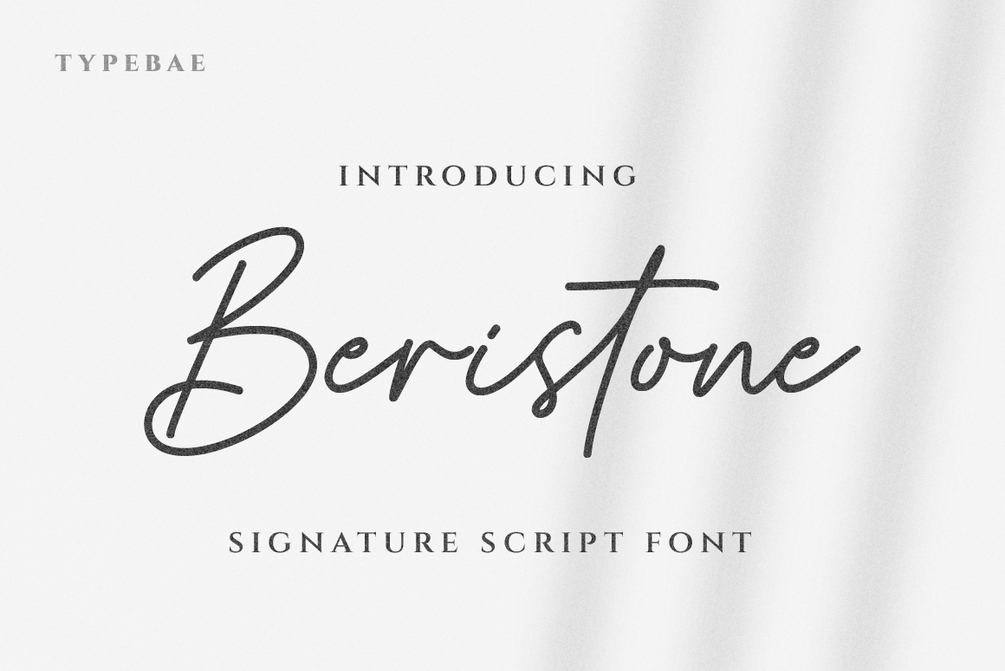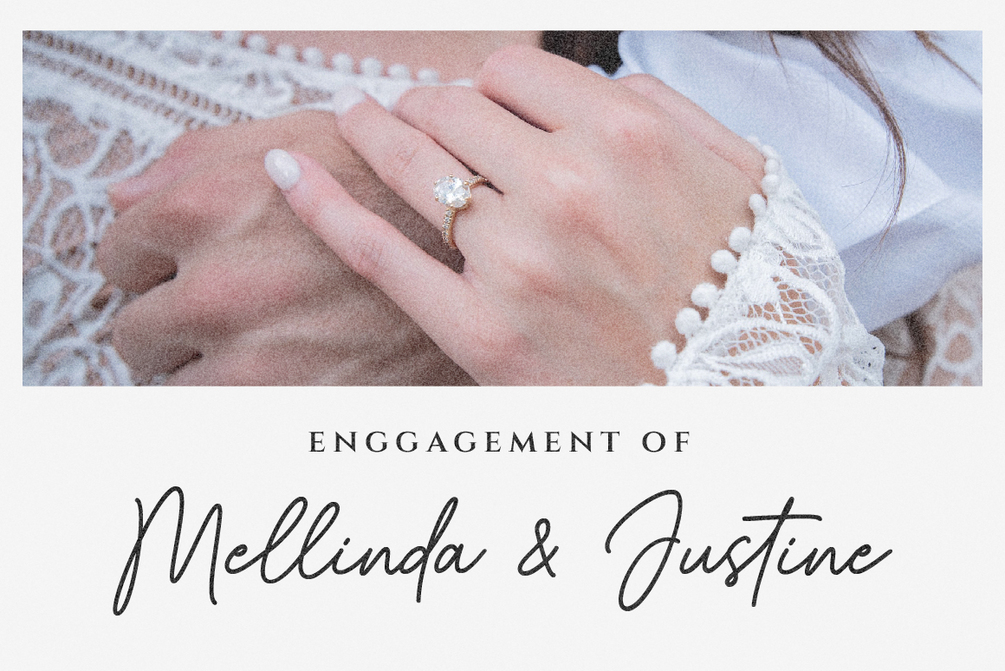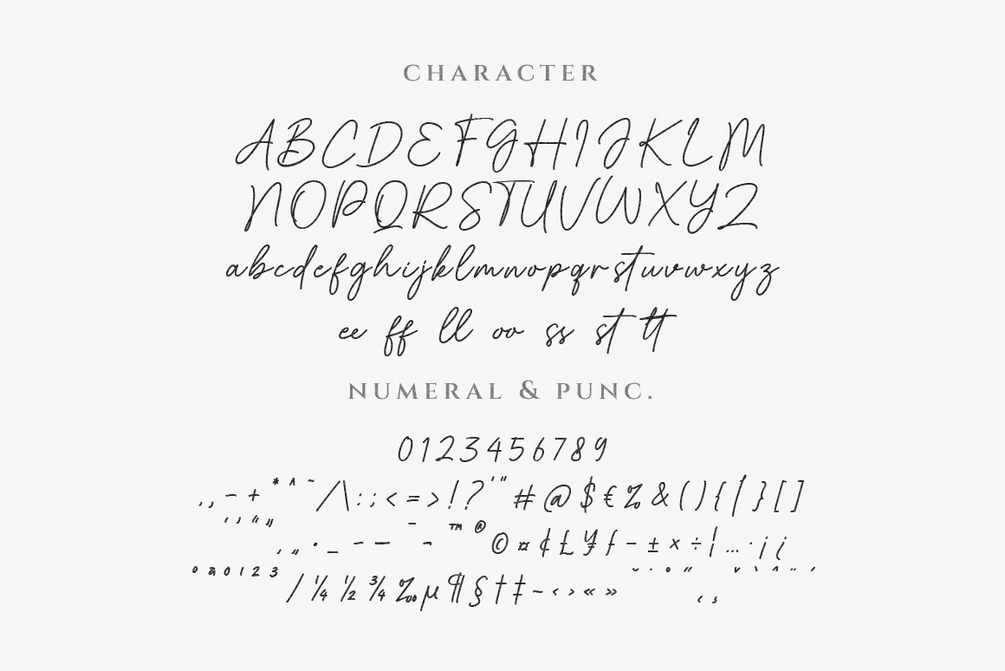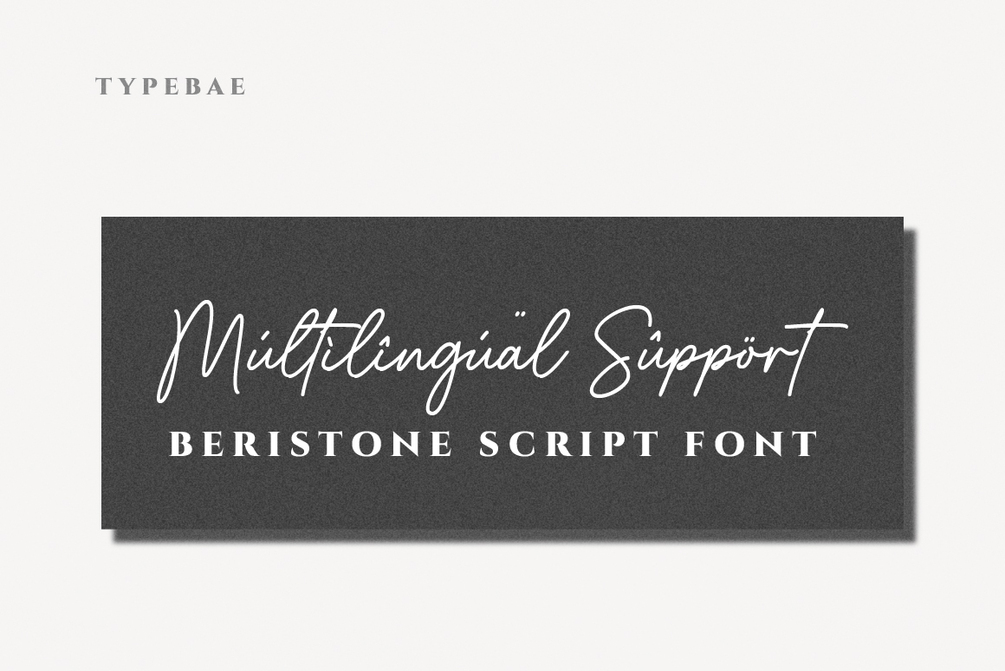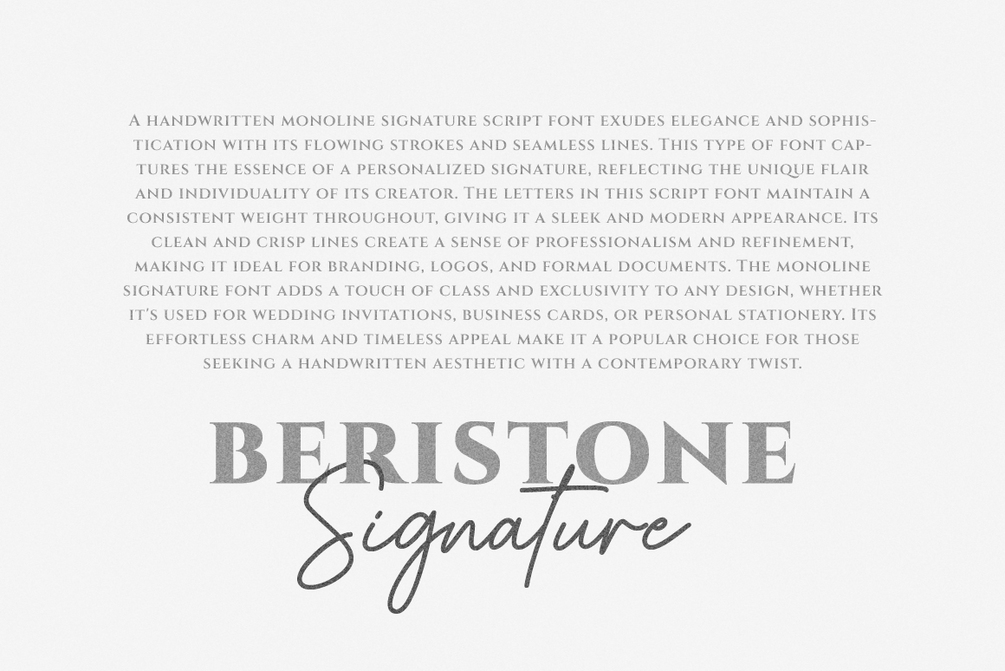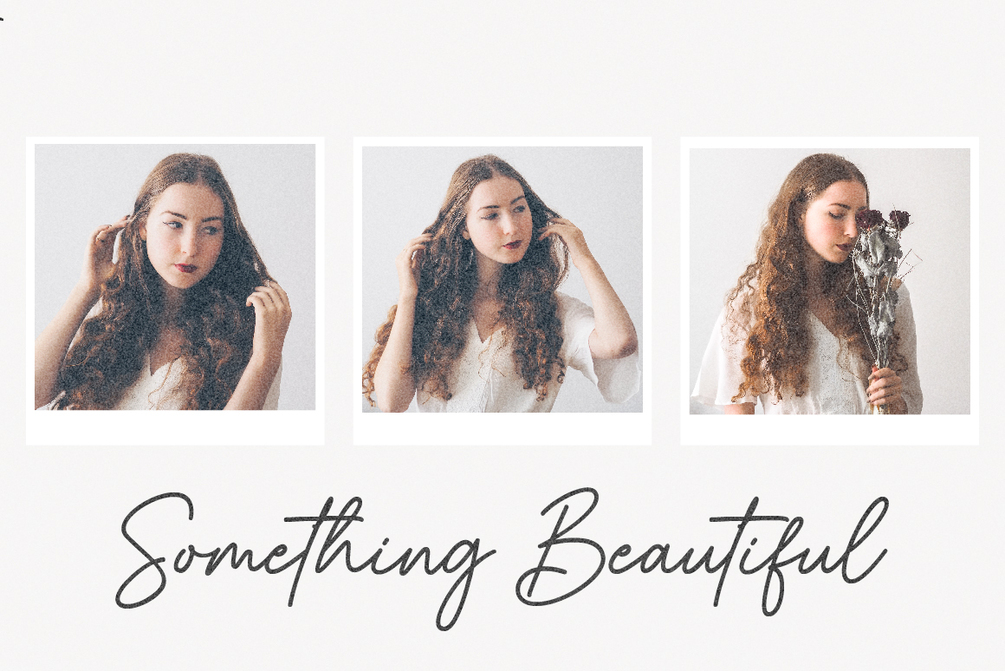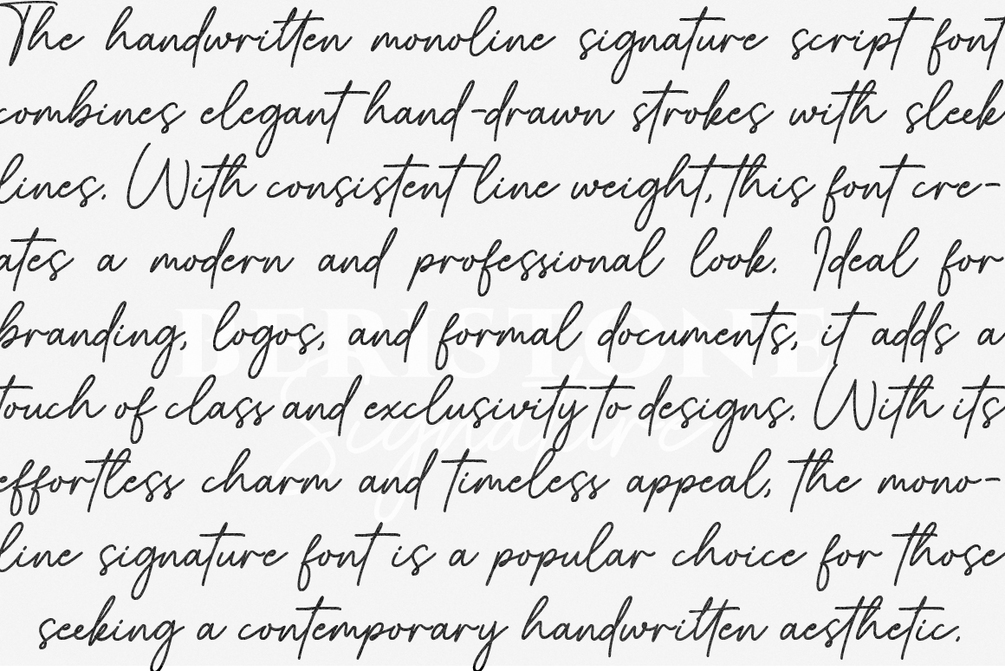
Beristone
Beristone is a beautiful handwritten monoline signature script font. With its elegant and fluid strokes, it exudes a sense of sophistication and personal touch. The font features smooth lines and graceful curves, creating a natural and authentic handwritten look. Beristone is perfect for adding a stylish and personalized touch to logos, branding materials, invitations, and any design project that calls for a refined and contemporary script font.
• Ligature feature